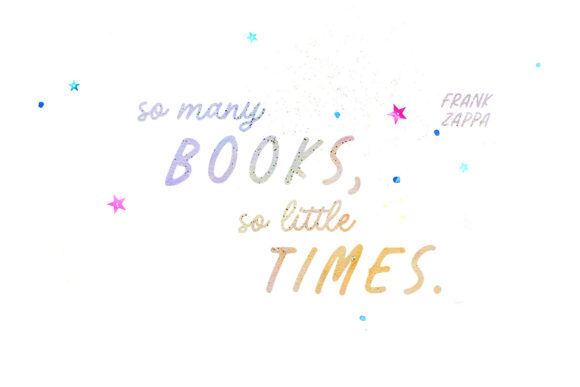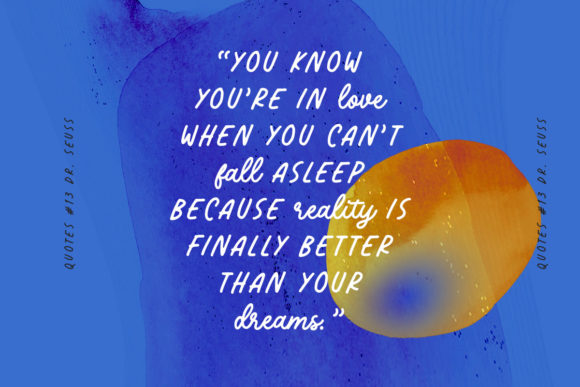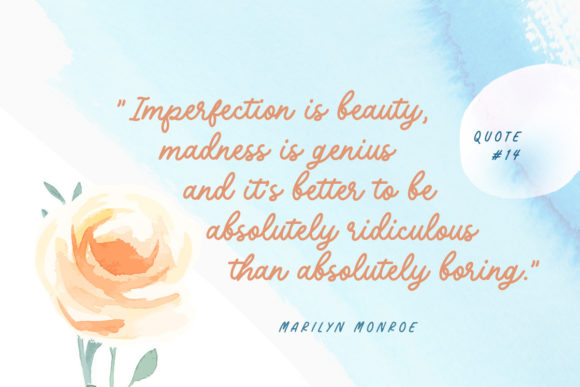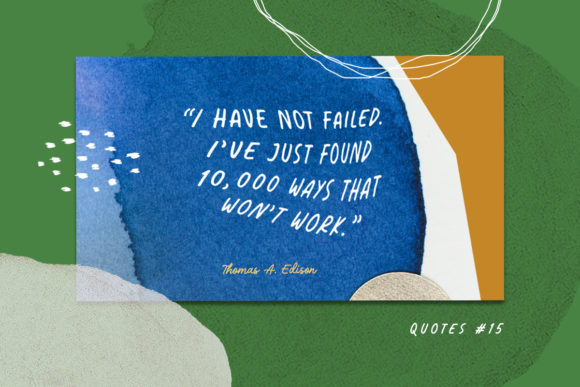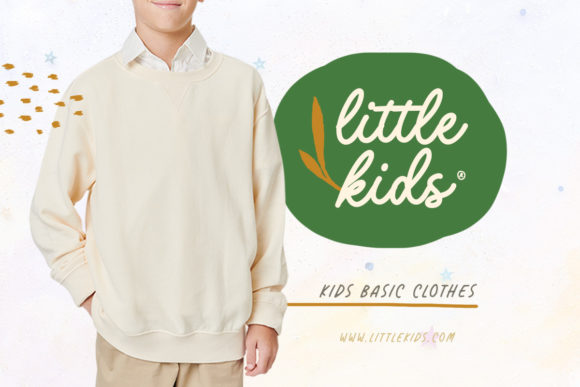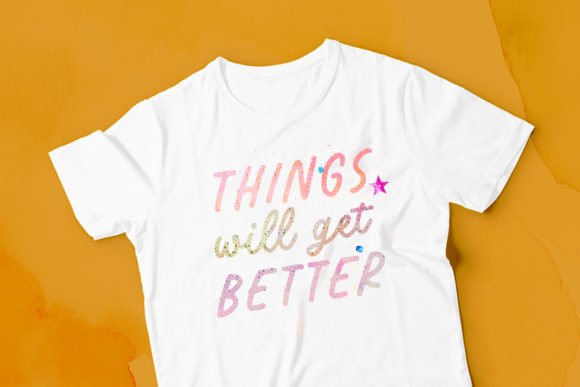
Introduction to North Valley Font
Do you remember that moment when you finally nailed the perfect design for your project, and everything just clicked into place? For many designers, it’s that rush of excitement and satisfaction that keeps us going. And what’s even better is when we have the right tools to help us get there. In this article, we’ll be exploring the North Valley Font, a beautiful and versatile duo font that’s sure to elevate your creative projects to the next level.
As a valuable addition to any designer’s toolkit, the North Valley Font offers a perfect balance of style and functionality. With its unique blend of sans serif and script elements, this font is designed to add a touch of elegance and sophistication to your designs. Whether you’re working on a high-end branding project or a simple graphic, the North Valley Font is sure to deliver high-quality results that will leave a lasting impression.
Key Features of North Valley Font
- High-quality font design ideal for creative projects, offering a unique and elegant aesthetic.
- Available in a single font size, making it easy to use in a variety of design contexts.
- Features a high resolution of 300 DPI, ensuring crisp and clear typography in both digital and print applications.
- Perfect for use in logos, branding, and other design elements where a sophisticated and modern look is desired.
Honest Review: North Valley Font
I recently had the chance to work with the North Valley Font, and I’m excited to share my thoughts with you. This font is perfect for any creative project that requires a high-quality, versatile font. I downloaded it for free, and I was impressed by the quality right off the bat.
What works well: ✨ The North Valley Font is incredibly versatile, making it perfect for a wide range of design projects. The font is available for free download, which is a huge plus for designers on a budget. The transparent background option is also a huge bonus, allowing me to easily integrate the font into my designs.
Overall impression: I was really impressed by the North Valley Font. It’s a high-quality design resource that’s perfect for any creative project. While it may have a few limitations, I think it’s well worth checking out.
The North Valley Font is a high-quality design resource that can elevate your creative project with its unique style and elegant appearance. It’s a free download that offers a transparent background, making it versatile for various design applications.
Tips for Getting the Most Out of North Valley Font
To get the most out of the North Valley Font, consider using it in combination with other design elements, such as images or graphics, to create a visually appealing design. You can also experiment with different font sizes, colors, and styles to achieve the desired look.
The North Valley Font is suitable for a variety of design projects, including business cards, brochures, posters, and social media graphics. Its elegant appearance and transparent background make it a versatile design resource for creative projects.